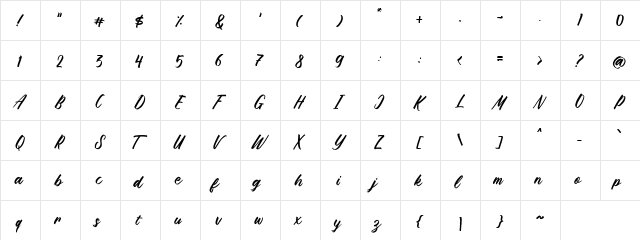
Brushpen Story Regular
Design Context for Brushpen Story Typeface
Brushpen Story flows with the natural rhythm of handwritten lettering, making it ideal for designs that call for warmth and personal expression.
Font Pairing: Combine Brushpen Story with a simple geometric sans for maximum contrast — the tension between flowing curves and clean structure is a classic typographic pairing.
Pro Tip: Use Brushpen Story for short runs of text — names, titles, or taglines. Extended body copy in script faces tires the eye quickly.